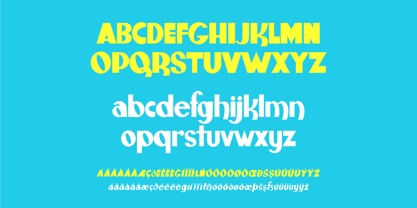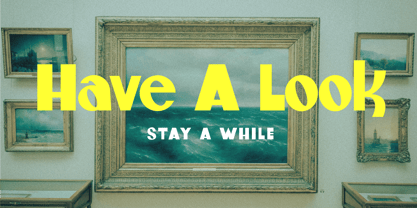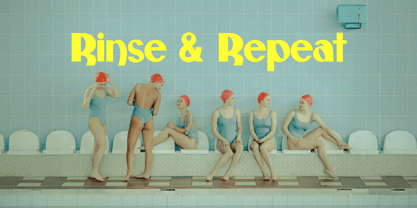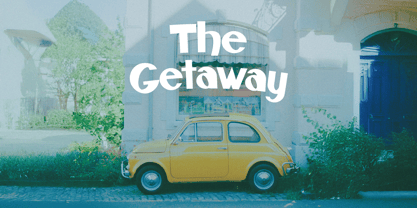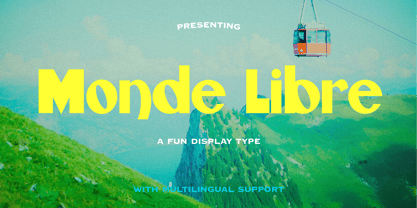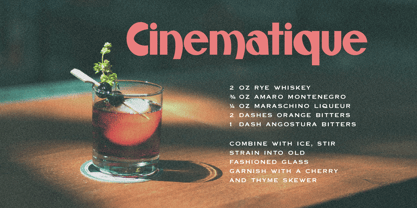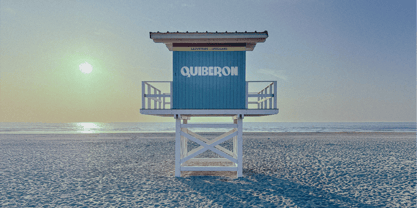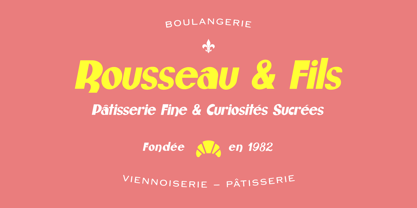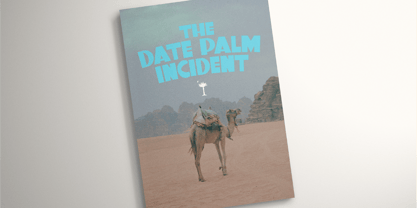
Monde Libre
Monde Libre — A Spirited Display Typeface Monde Libre is a bold yet refined display typeface that balances charm and precision. Its distinctive curves and confident rhythm evoke the warmth of classic European lettering while feeling distinctly contemporary. Designed to stand out without overwhelming, it brings personality and polish to any visual system. ⸻ About the Typeface Monde Libre blends structured geometry with expressive detailing, creating a typeface that feels timeless and versatile. The letterforms carry a soft contrast and playful flow, lending a human touch to headlines, packaging, and brand identities. Built for designers who value both craft and character, Monde Libre works beautifully in editorial layouts, boutique branding, signage, and title design — anywhere a sense of design heritage meets modern storytelling. ⸻ Ideal For • Branding and visual identity • Editorial and publication design • Posters, packaging, and signage • Lifestyle, hospitality, and cultural projects • Film titles and display typography ⸻ Features • Uppercase and lowercase letters • Extensive multilingual support • Optimized for display use ⸻ Design Notes Monde Libre’s personality lies in its contrasts — structured yet approachable, graphic yet expressive. It invites designers to experiment with color, texture, and composition, bringing a tactile quality to digital work. The result is a typeface that feels both familiar and newly discovered.